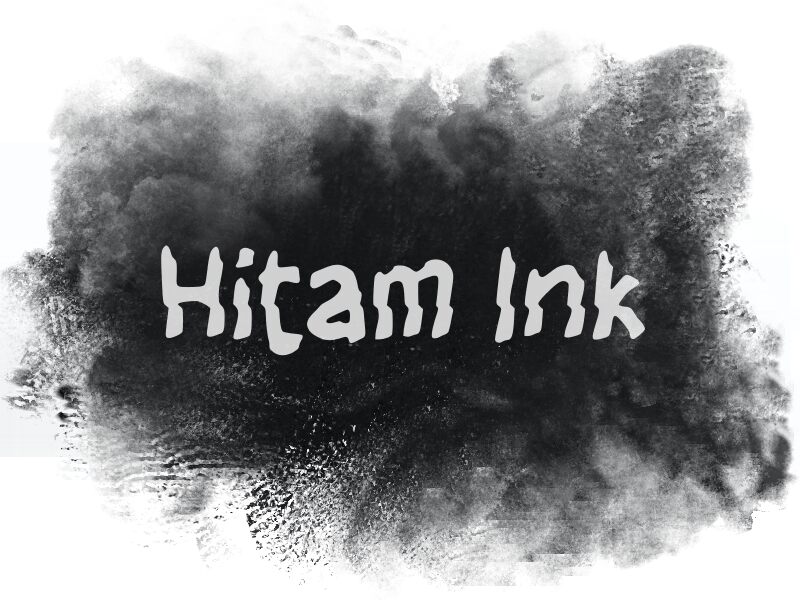
Hitam Ink
Hitam Ink font by wep is a handwritten free display font, playful, informal, expressive and artistic. The distorted letters create a unique style that makes it most suitable when you are developing something that has to interact with people. And lastly, the name of the font translates to “Black Ink,” in Bahasa Indonesia.
Use this font in logo design, print packaging labels and tags, invitations and wedding cards. It suits poster design and flyers as well. It suits branding materials like business cards or letterheads.